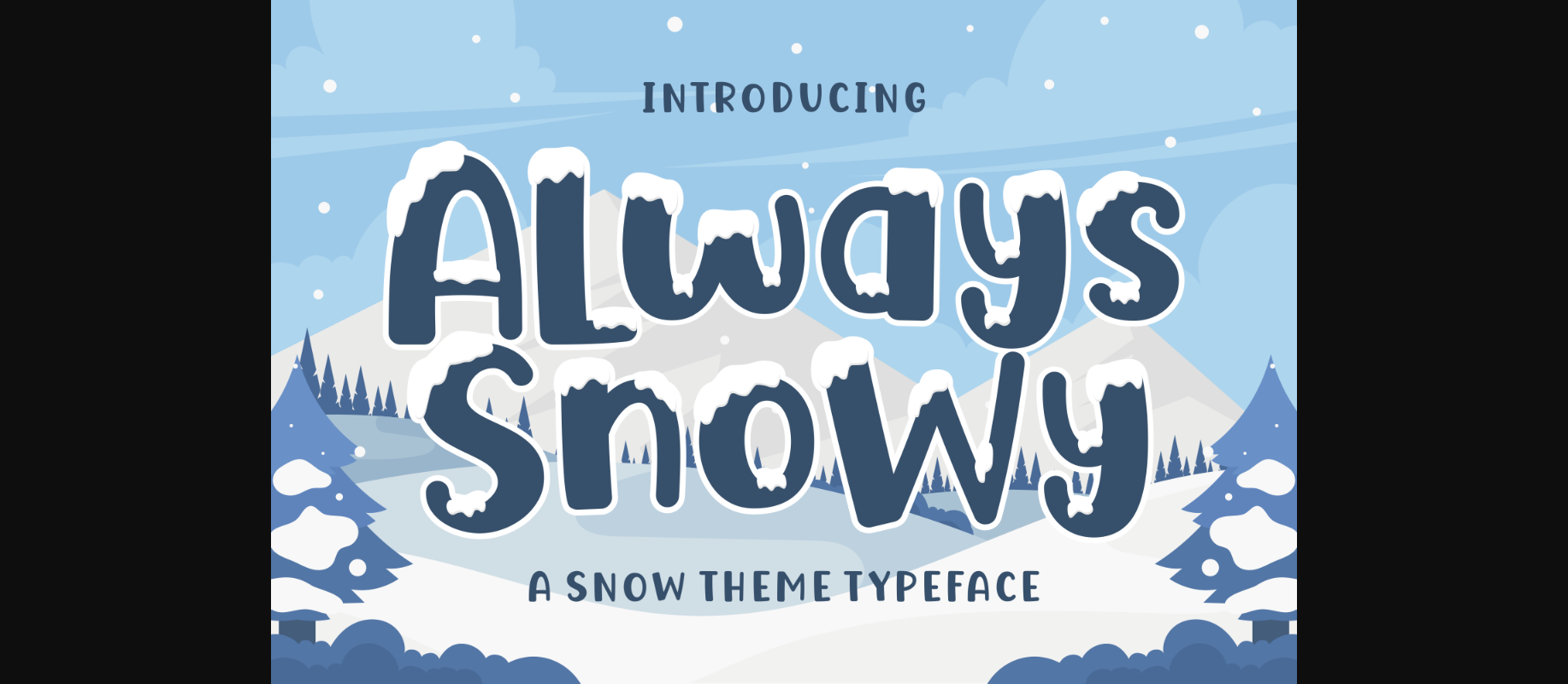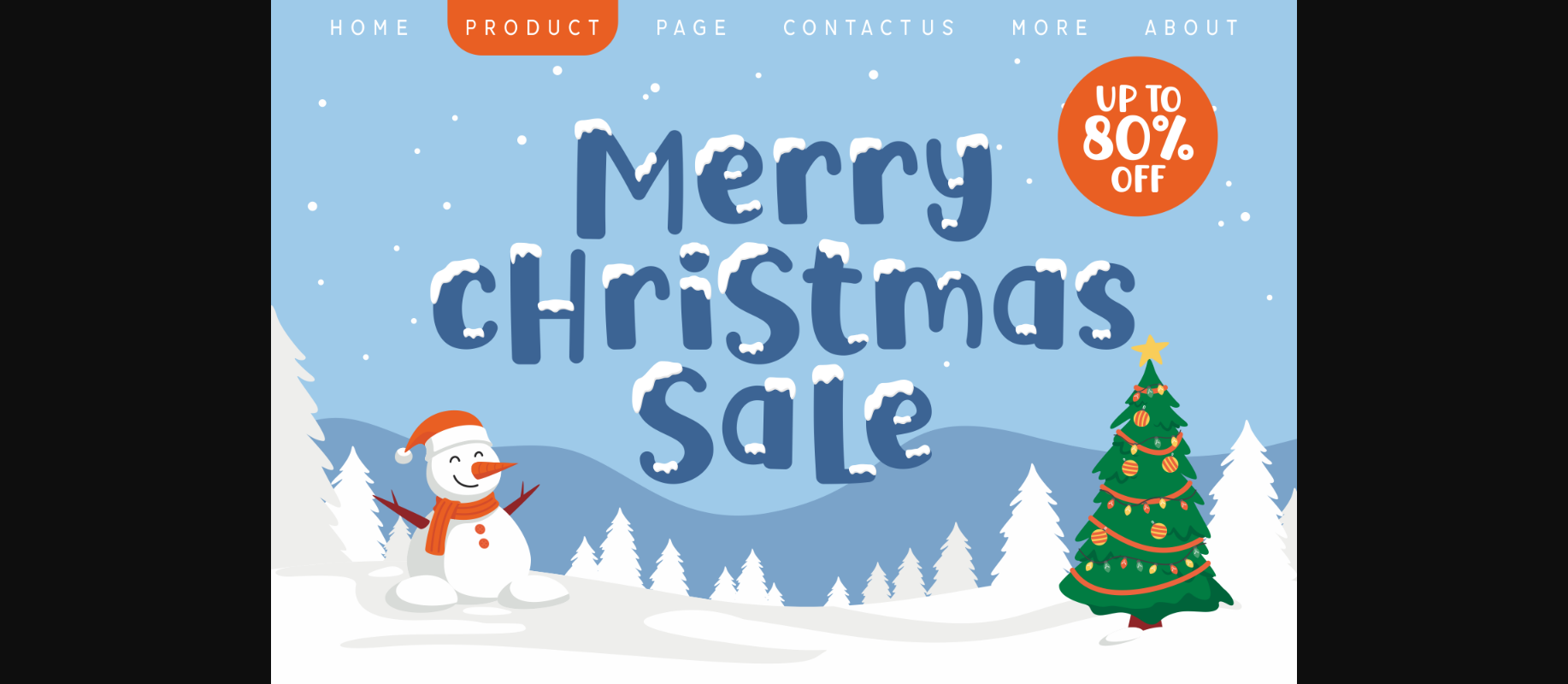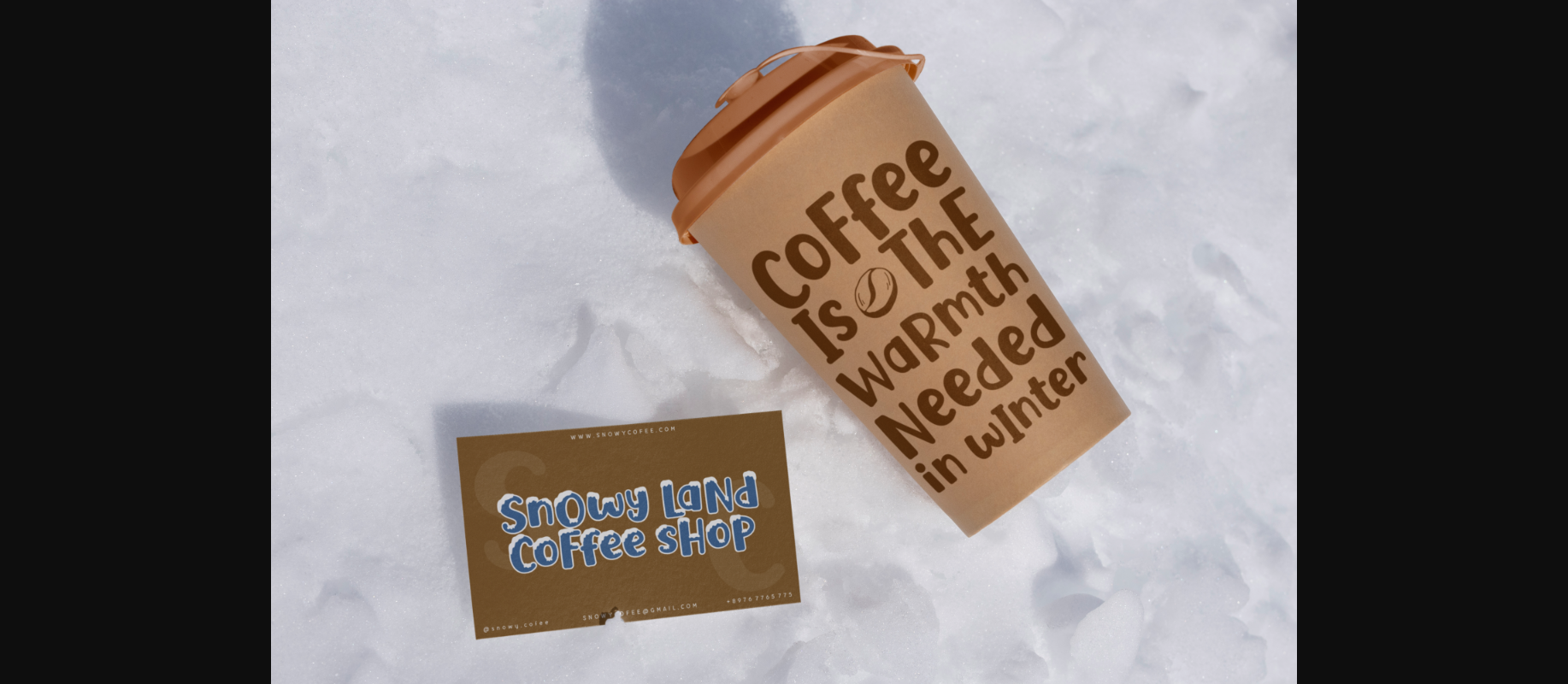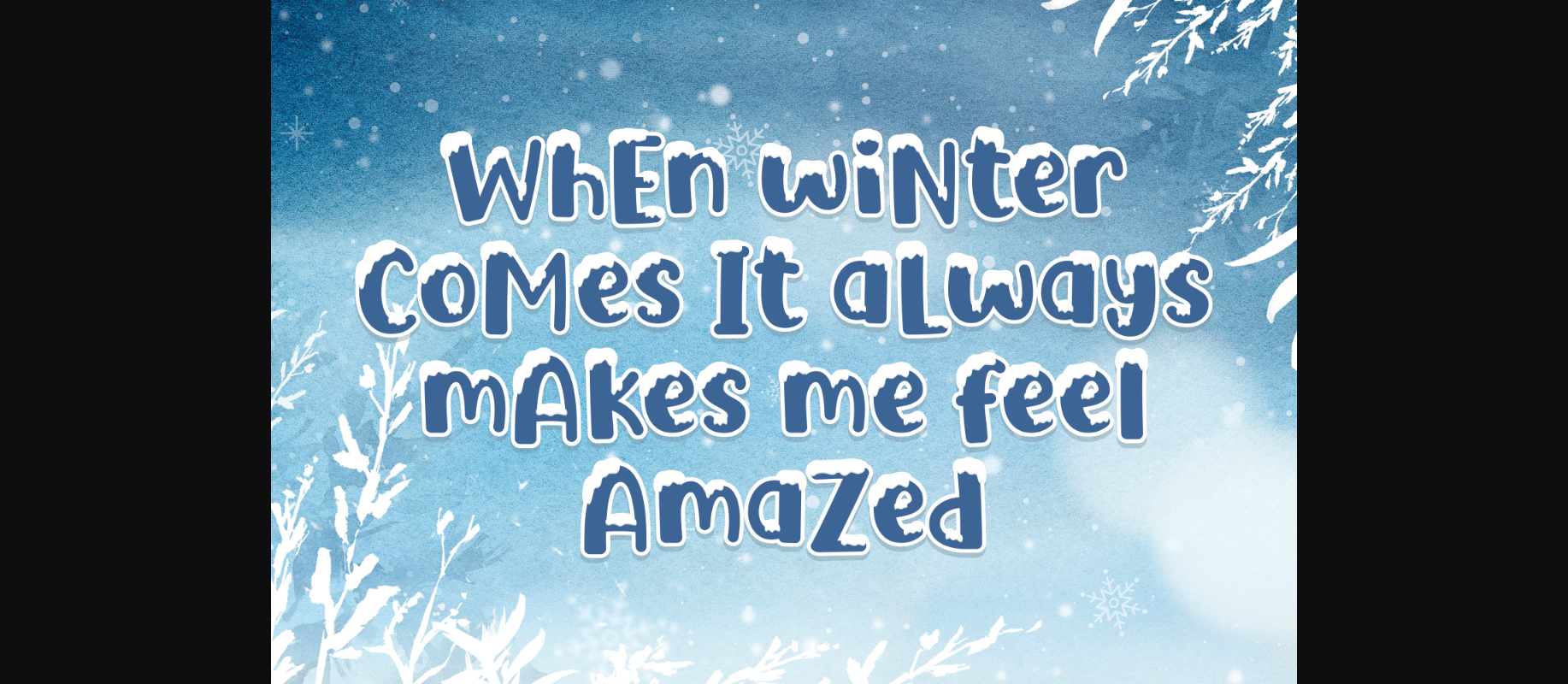
About Always Snowy Font
Always Snowy is a charming winter-themed decorative font. Elevate your winter typography designs with these cute and snowy characters! You can use them for Christmas cards, invitations, posters, home decorations, and more.